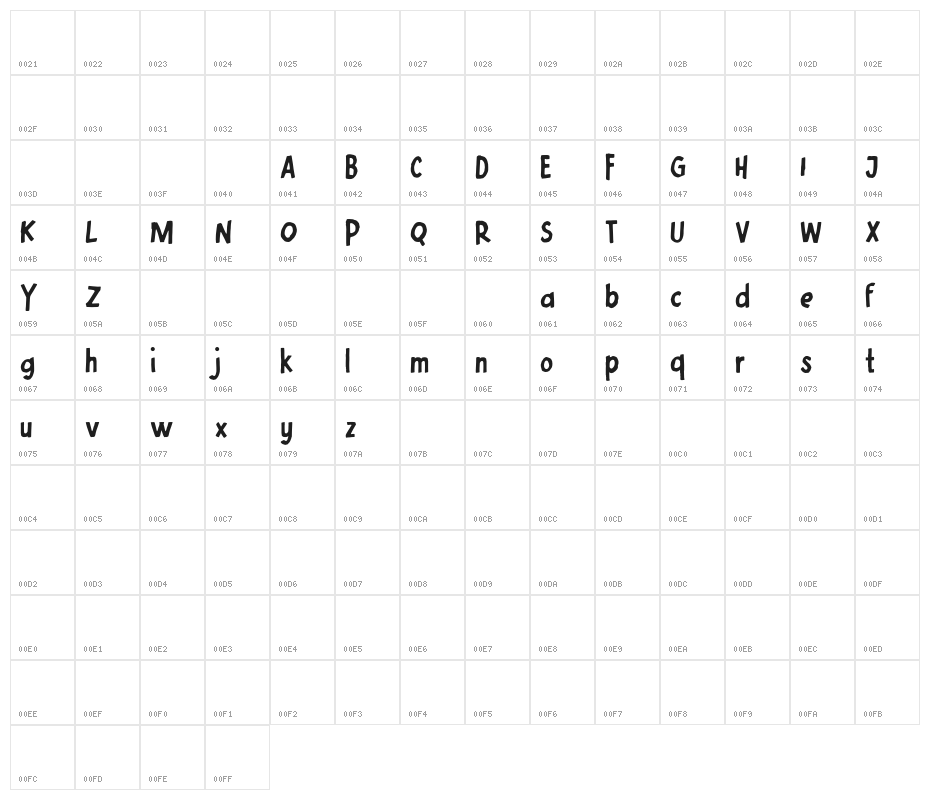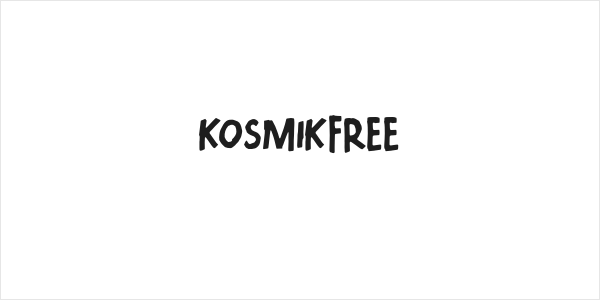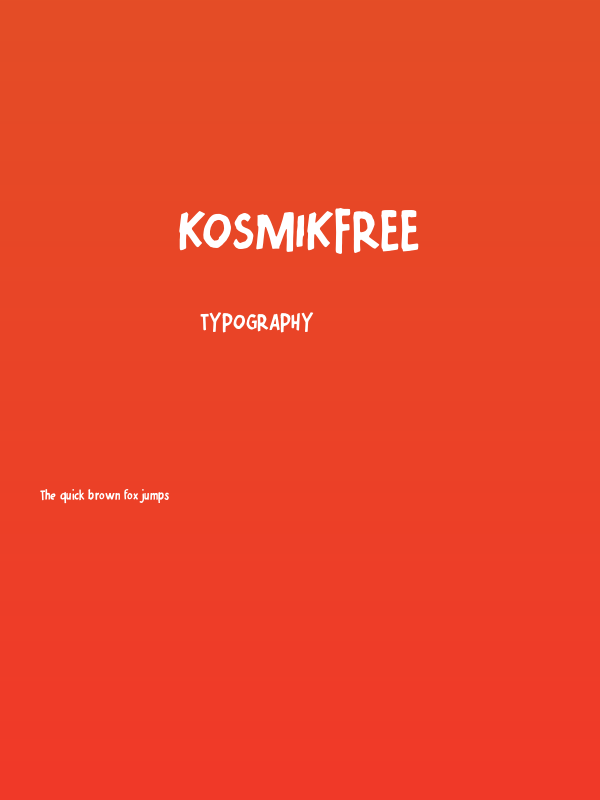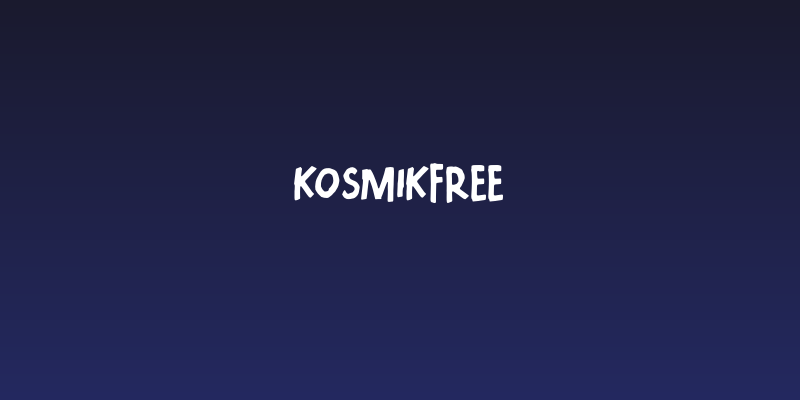
KOSMIKFREE Font
KOSMIKFREE Description
This font features a playful and bold design with a hand-drawn aesthetic. The characters are slightly irregular, giving it a whimsical and informal feel. The uppercase letters are robust and stand out with their thick strokes, while the lowercase letters maintain a consistent style with a slightly narrower form. The overall appearance is dynamic and lively, making it suitable for creative and fun projects. The font's unique style can add a touch of personality and charm to any design, making it ideal for headlines, posters, and branding materials that require a distinctive and engaging look.
| Use Case | Headlines, Posters, Branding |
| Proposed Projects | Ideal for children's books, playful branding, creative posters, and informal invitations. |